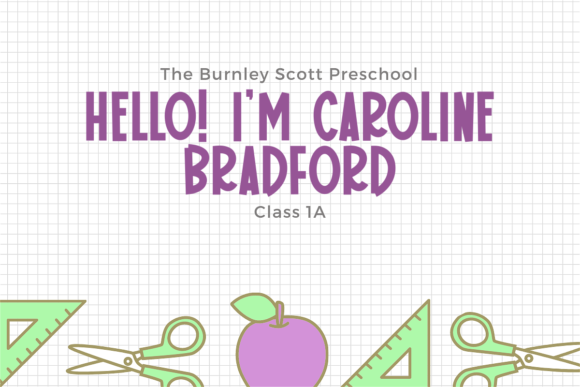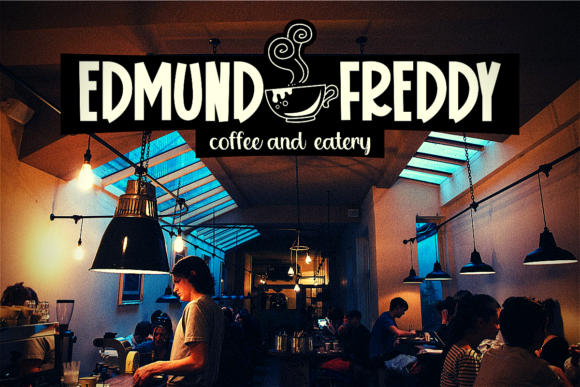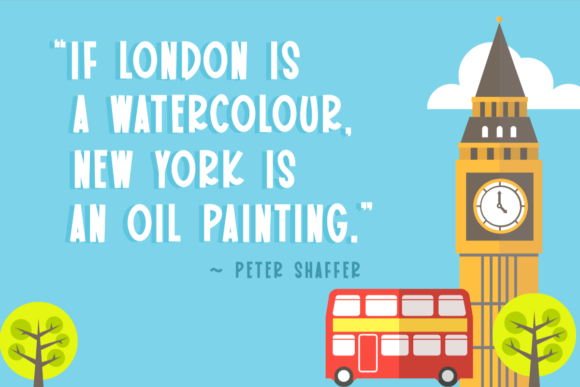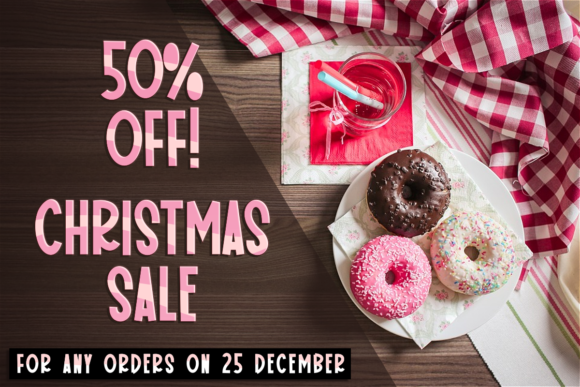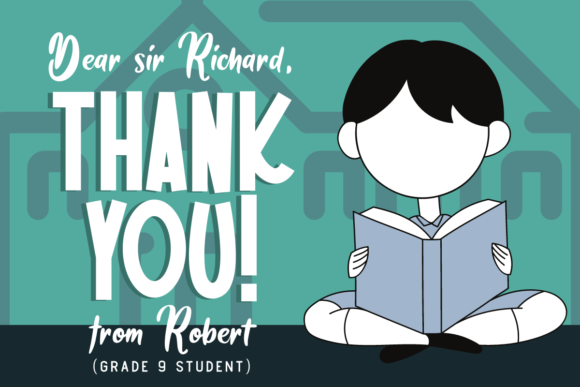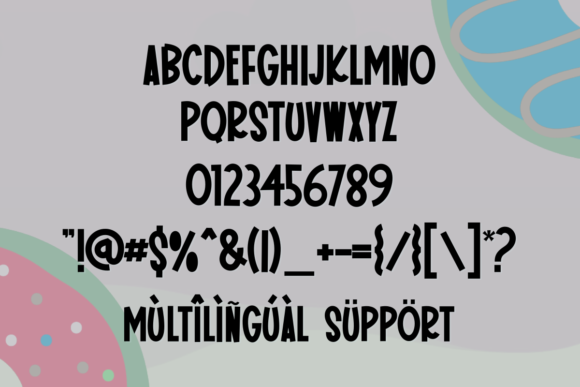
Introduction to Homemade Donuts Font Font
Fonts play a crucial role in design, and the Homemade Donuts Font font is a typeface that brings both character and versatility to any project. Whether you’re working on a branding project, a website, or a print design, the Homemade Donuts Font font offers a unique style that can elevate your work.
| 📌 Font Name | Homemade Donuts Font |
| 👤 Author | Deedeetype |
Homemade Donuts is a sweet and chunky lettered display font.
This dazzling display font will turn any creative idea into a standout .
Key Features of Homemade Donuts Font Font
Why Choose Homemade Donuts Font Font?
The Homemade Donuts Font font is more than just a typeface – it’s a design tool that helps you communicate your message with style and clarity. Its unique character set and versatile design make it suitable for a wide range of applications, from elegant invitations to bold headlines.
With its carefully crafted letterforms and balanced proportions, the Homemade Donuts Font font ensures readability and visual appeal across all mediums.
What makes Homemade Donuts Font font special?
The Homemade Donuts Font font stands out with its unique design, exceptional readability, and versatility across various design applications.